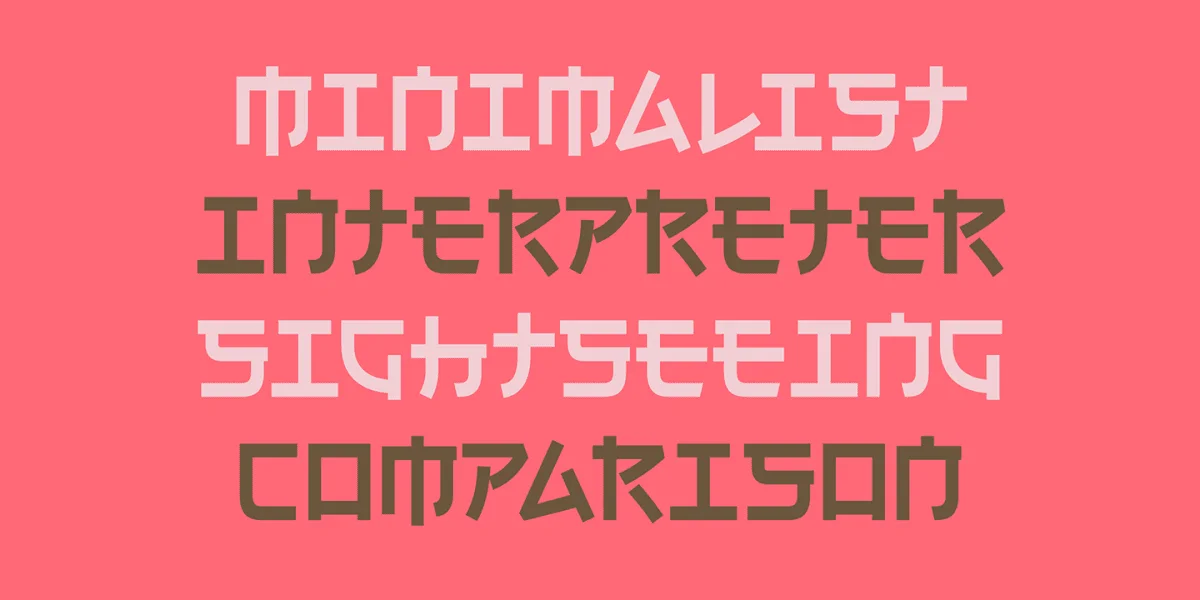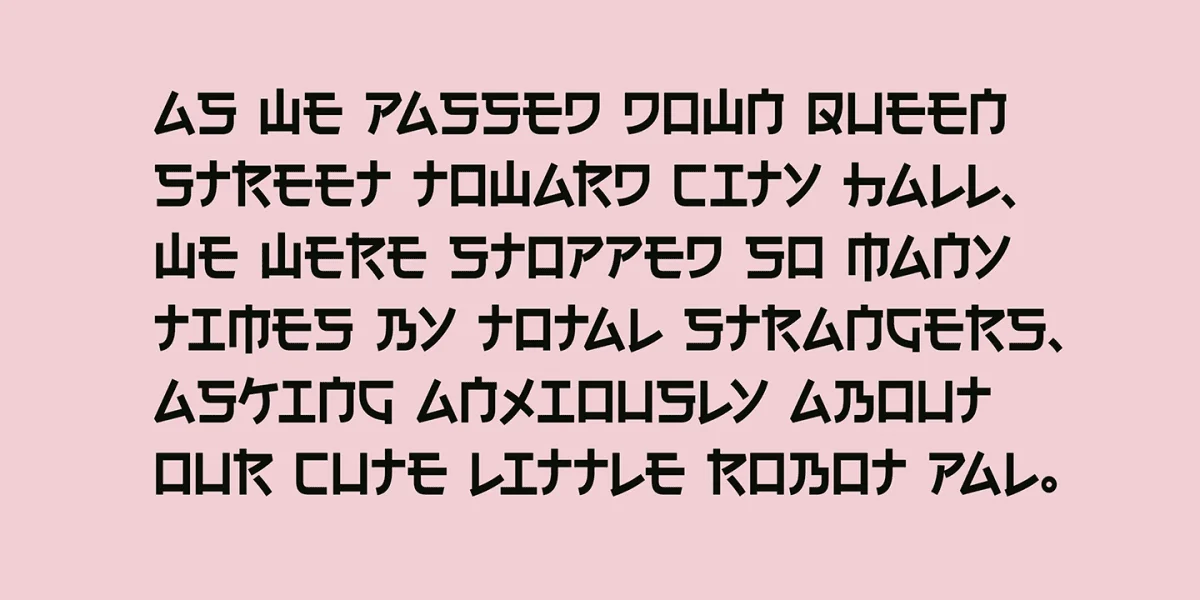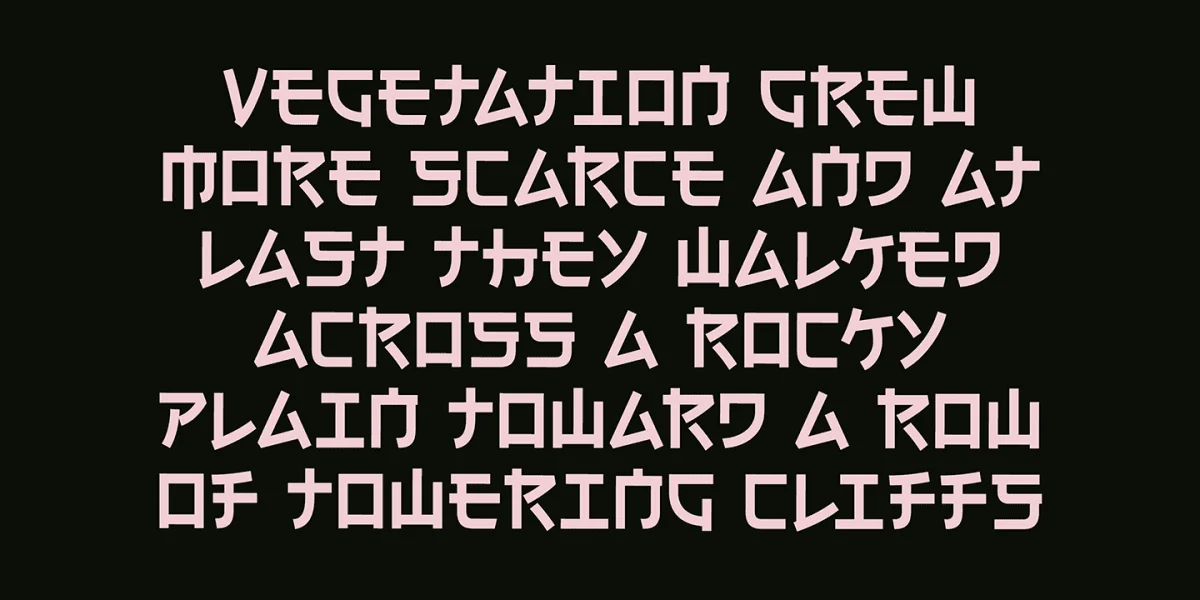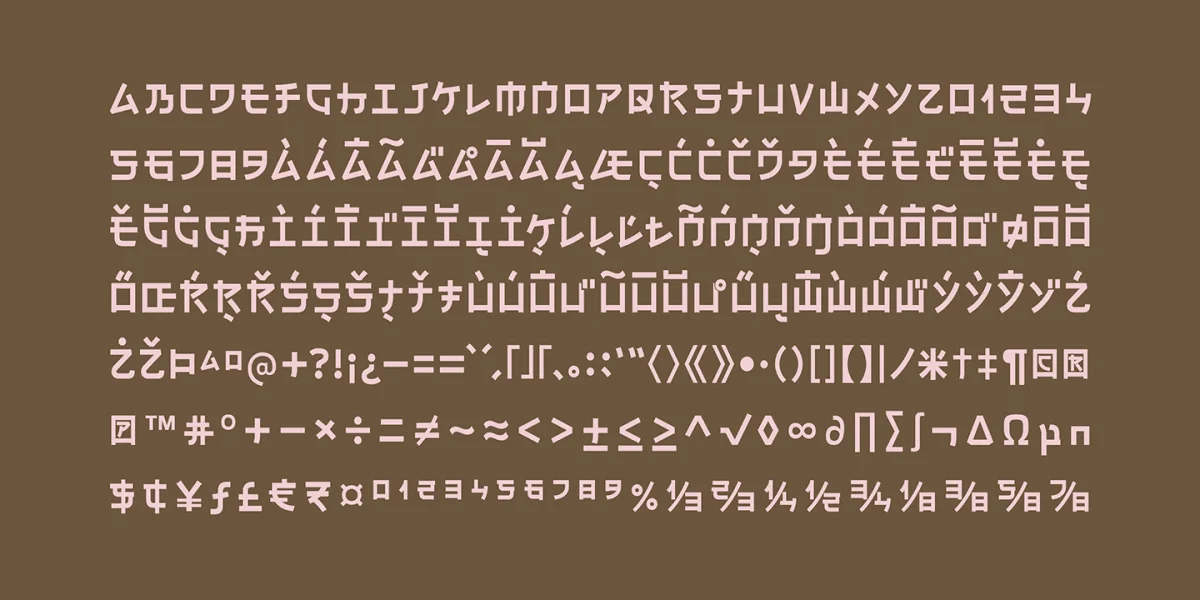
Have you heard of Electroharmonix, the pseudo-Japanese display typeface inspired by katakana, hiragana, and kanji? While it may look like a fun and quirky font to use, it’s important to exercise caution when using it.
If you’re thinking of using Electroharmonix, it’s important to note that most Japanese readers can’t read this typeface at all. In fact, it was featured on several Japanese variety shows, and guests struggled to read the word “Hello” due to their familiarity with katakana characters. In 2020, Electroharmonix was even featured on a Japanese game show where the segment couldn’t be aired because none of the guests could read a single word!
It’s easy to see why this font could be a bit tricky to read for native Japanese speakers, which is why it’s important to do your research before using it. In a certain context, Electroharmonix can be construed as culturally insensitive and can contribute to casual racism. So, it’s important to take the time to ensure you’re not using it to perpetuate cultural stereotypes.
While it may be tempting to use Electroharmonix because of its fun and quirky style, it’s essential to remember that typography can have a significant impact on how people perceive your message. So, if you do decide to use this font, be sure to do so with care and consideration. After all, it’s always better to err on the side of caution when it comes to respecting different cultures and customs.